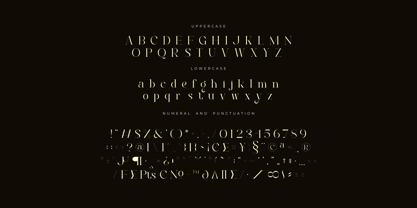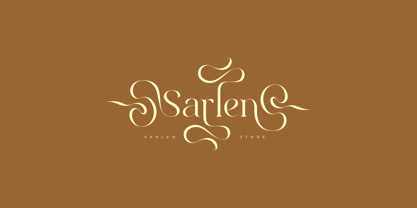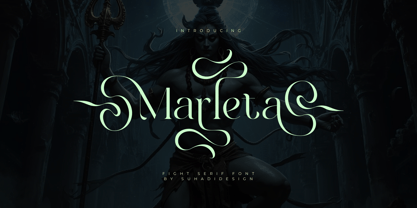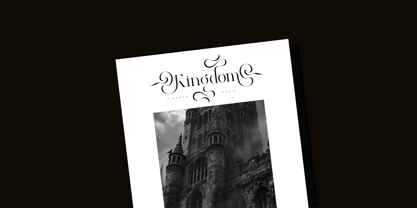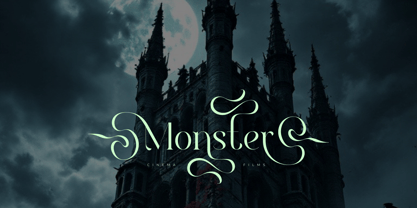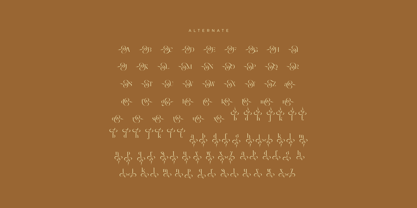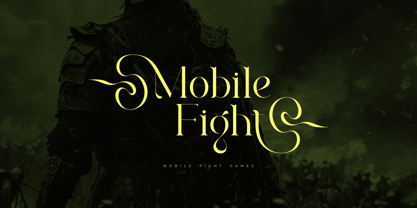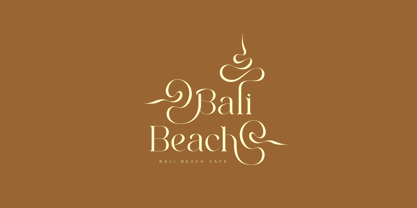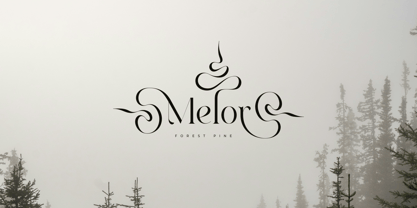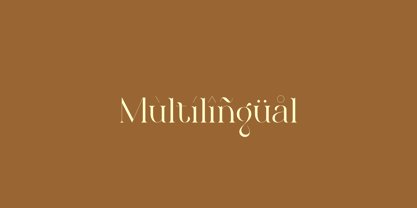
Marleta
The Marleta Font Family was designed by ahmad suhadi and published by suhadidesign. Marleta contains 1 styles.
Marlita - Fight Serif Font Hello, ladies and gentlemen! The latest Royal and Modern style font is here, a font much sought after by both women and men. This is the Marlita font. Marlita is a serif font with a distinctive gaming or royal feel. With its stylish modern design, this font has become a favorite on the market. We've kept this font looking elegant, classy, ​​and stylish. Marlita is the perfect choice for movies, games, kingdoms, tourist attraction names, boutiques, magazines, designs, books, publications, branding, brand names, business cards, social media, branding, and other projects. Marlita is here to elevate the quality of your designs. Stay tuned for the latest information about font creation :) Features: • Uppercase • Lowercase • Alternate • Multilingual Support • Numbers • Punctuation Thank you
Marleta